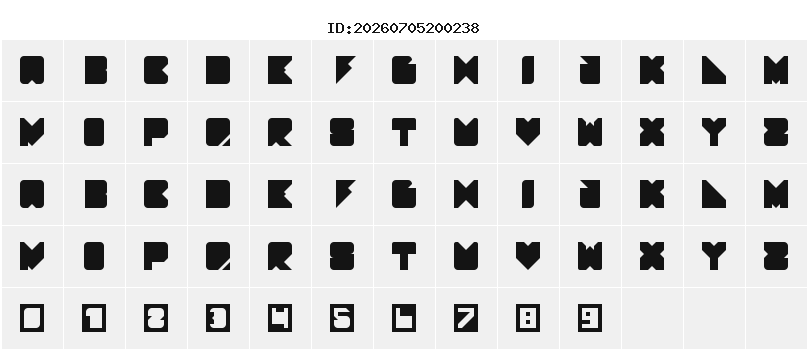
• Font Name: Display new RD
• Designer: rafaellduartee
• Description: ‚ÄúDisplay new RD‚Äù was built with FontStruct
About Display new RD.ttf
Display new RD.ttf is a modern, elegant sans-serif font designed for ultimate readability and visual harmony. Perfect for branding, headlines, web design, and print materials.